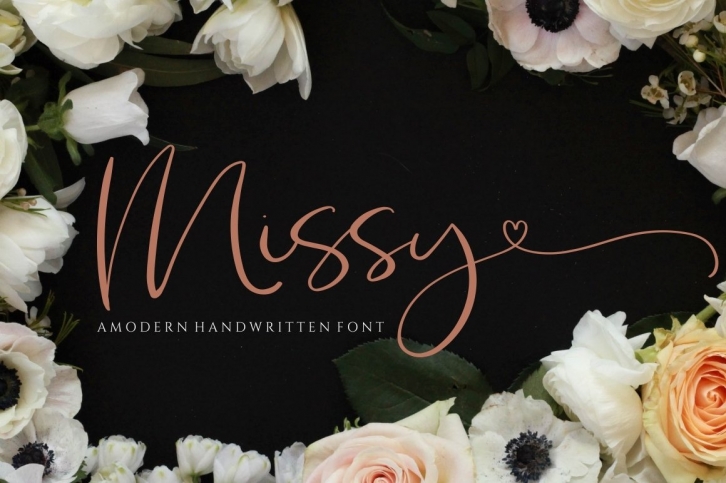
Missy is a beautiful font that was designed by Reyreyblue. It's a great choice for designers and creatives who need such a font. It was released on January 1, 2021 and the file size is 7.99 MB. Missy may give a more youthful, expressive and casual look to your project. It is a very beautiful, refined, elegant, and high-quality font.